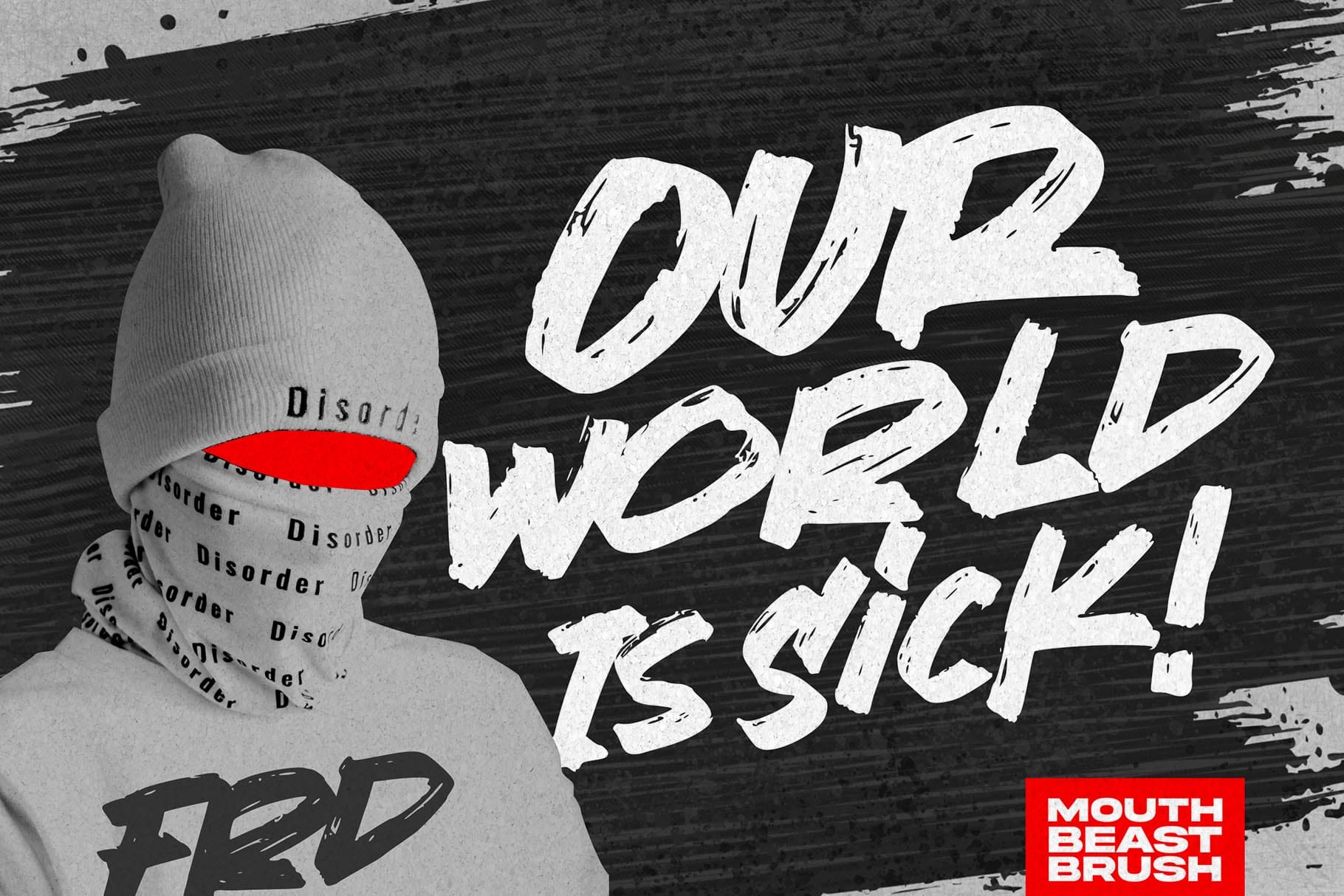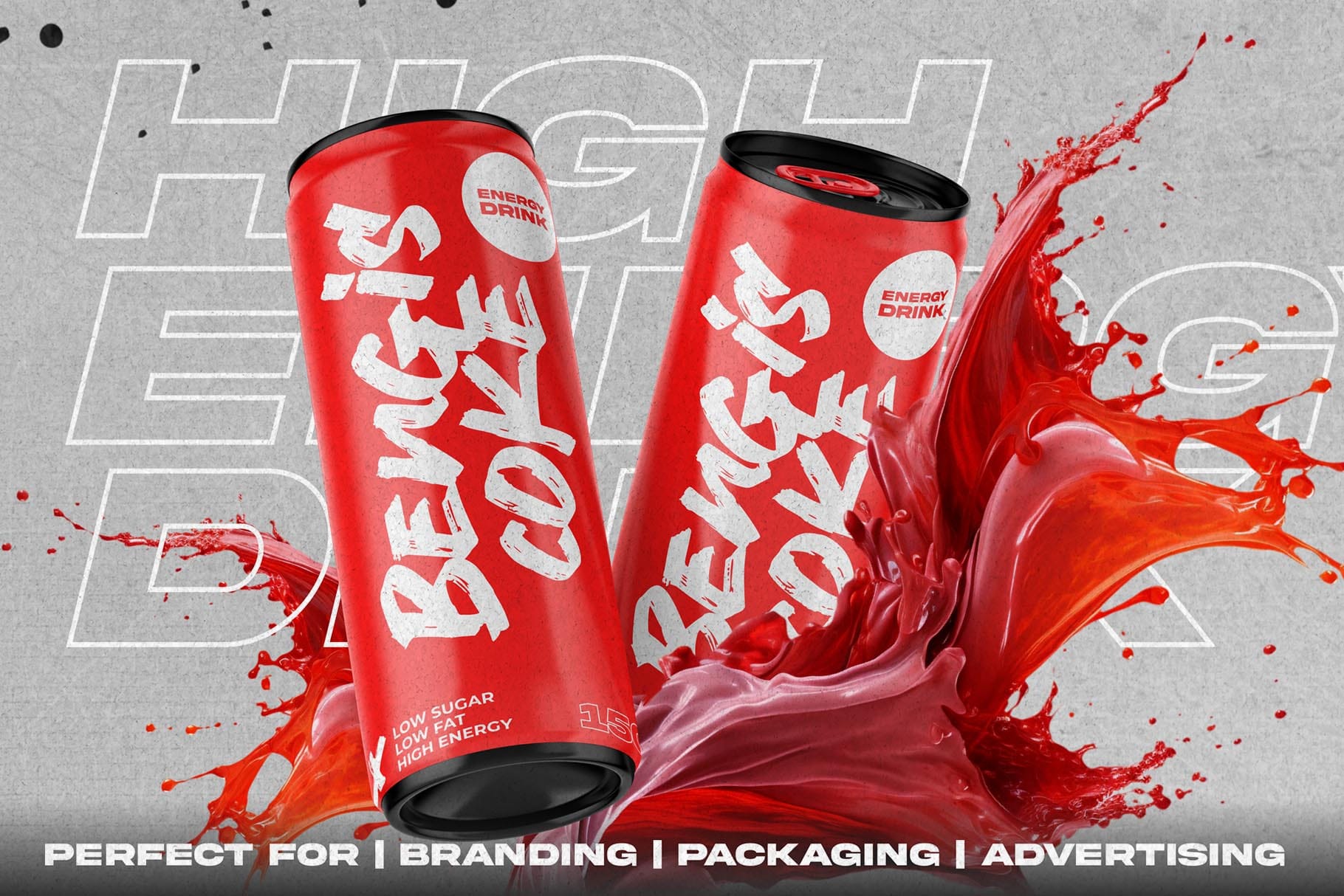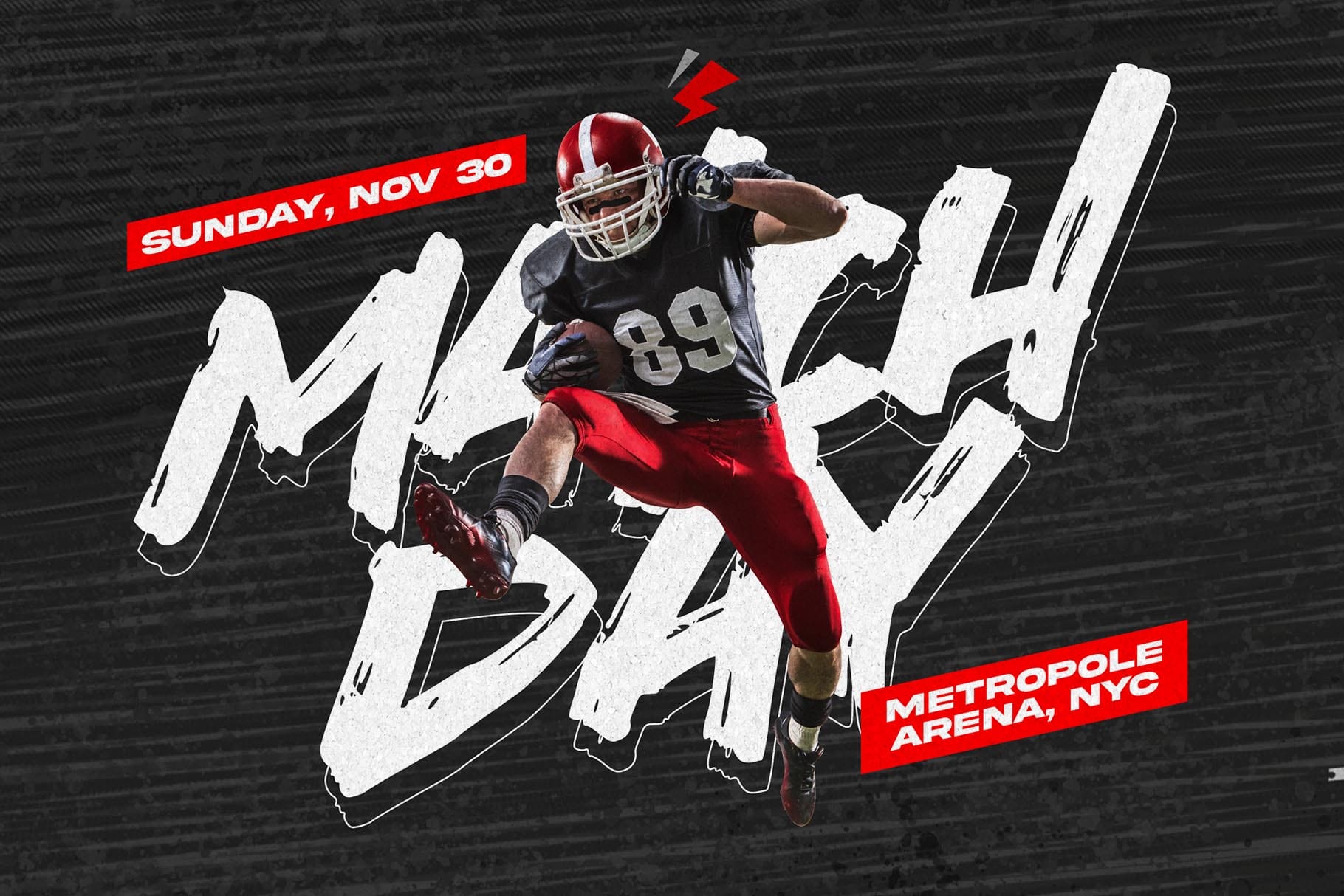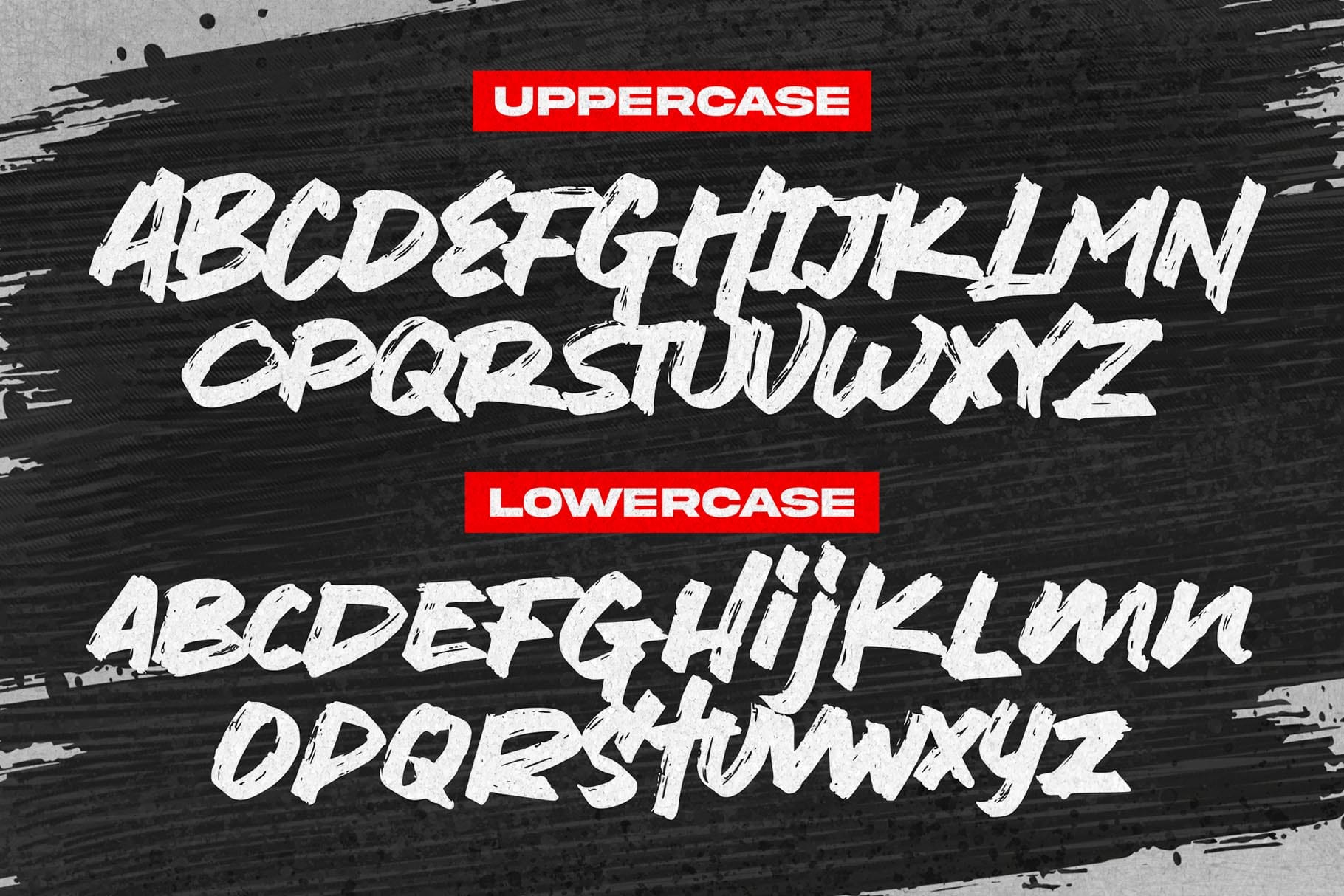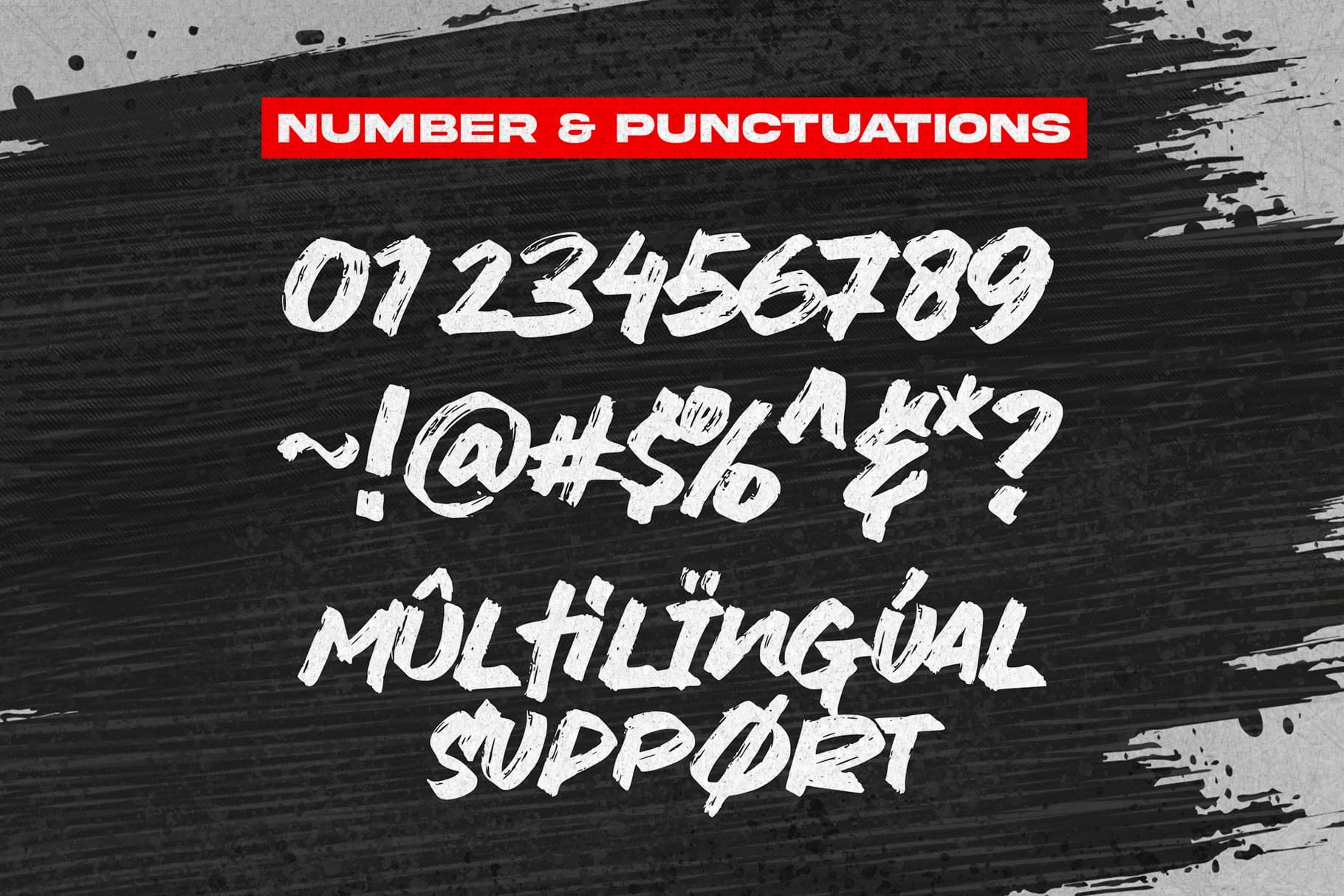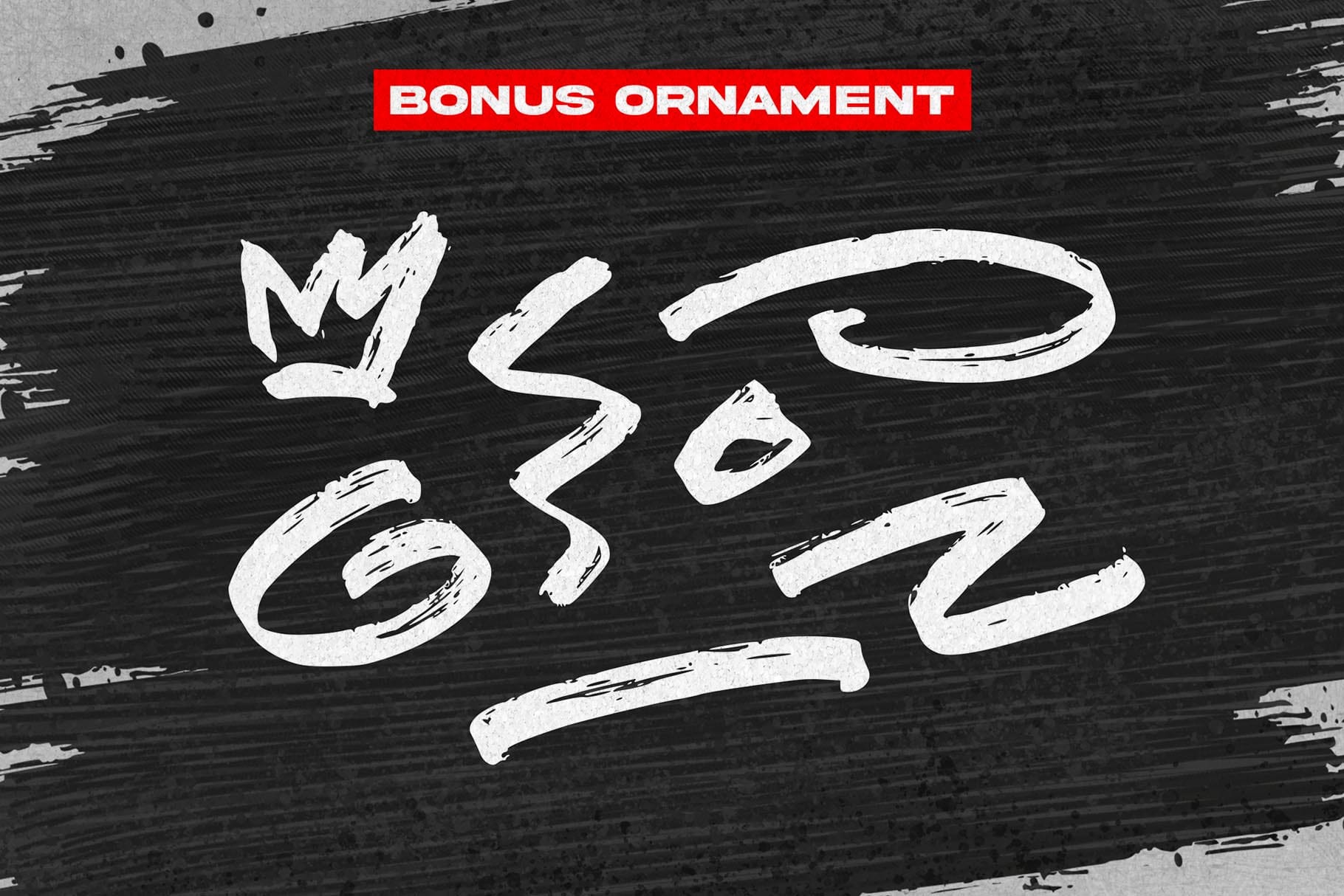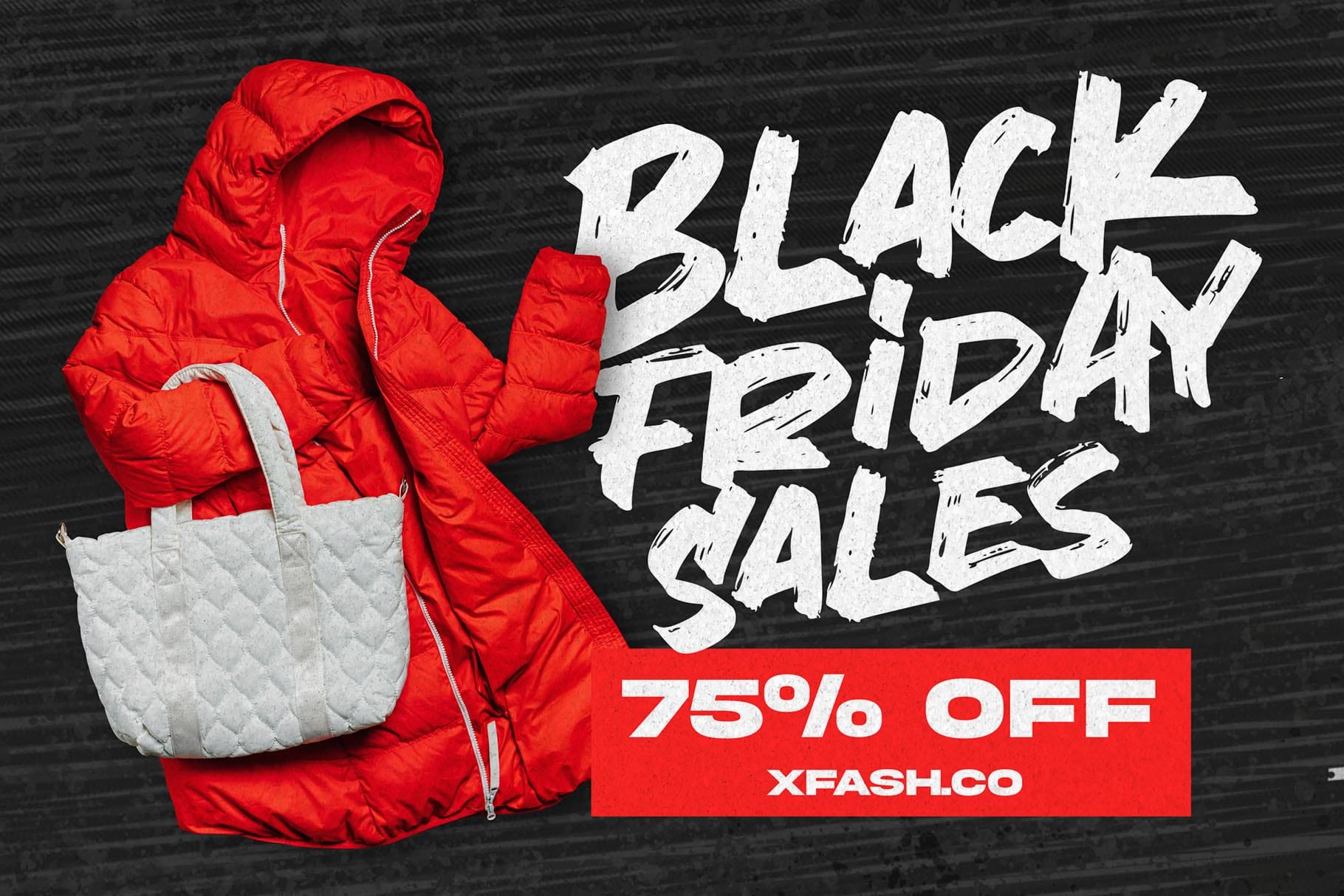
Mouth Beast
Mouth Beast is a strong brush font that adds power to your designs. Its bold lettering is perfect for projects that need a fearless and impactful style. Each stroke of Mouth Beast’s brush captures untamed expression, making it ideal for graphic designs that want a raw, energetic look. Whether on posters, logos, or urban-inspired artwork, Mouth Beast stands out as a captivating force in typography.
Mouth Beast isn’t just a font; it’s a visual roar. Its intense brush strokes convey unapologetic rebellion, making it a perfect choice for those breaking free from the ordinary. Whether your designs need dominance or a lasting impression, Mouth Beast turns text into a bold statement, leaving a mark filled with untamed creativity.